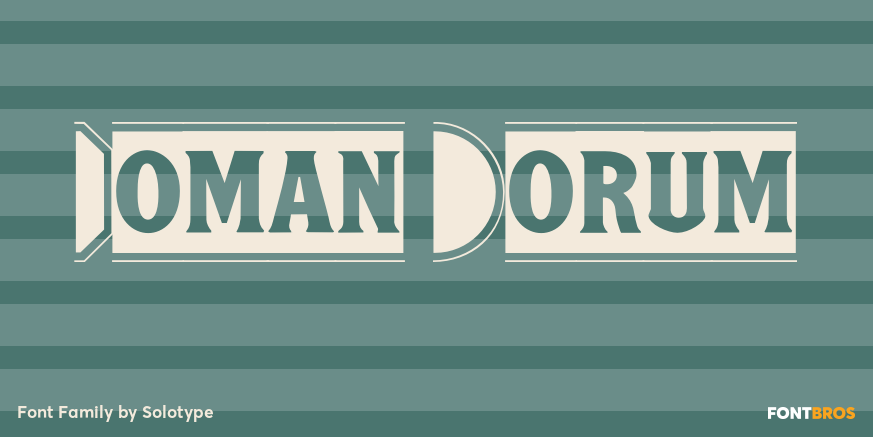
HomeFont BrosSpecial EffectRoman Forum Special Effect Roman Forum FacebookXPinterestWhatsApp 1 of 1 About Roman Forum A special effects font that forms headlines reversed on a background. Many different endpieces are furnished.  DOWNLOAD ON FONT BROSThis font is sold and delivered by Font Bros. Font Canyon may earn a commission if you buy through this link. People also explored Dolvphy Font Snappy Vallocka Mochi Font Pro Sotan Font Fazerdaze Font Leftover Crayon Hisstories Font Mountains Font 305 0 TagsRoman Forum Font Previous articleEmblem ChiefNext articleArpona Sans LEAVE A REPLY Cancel reply Comment: Please enter your comment! Name:* Please enter your name here Email:* You have entered an incorrect email address! Please enter your email address here Website: Save my name, email, and website in this browser for the next time I comment. Personal Use Free Mail Ray Stuff Personal Use Free Read more about this font BD Spinner Personal Use Free Read more about this font 1313 Mockingbird Lane Personal Use Free Read more about this font Kaysan Personal Use Free Read more about this font BLOG Free vs Paid Fonts: Why Investing in Premium Fonts Is Worth It Free vs Paid Fonts: Why Premium Fonts Are Worth It in 2025 The debate of free vs paid fonts continues in the design world. While... Top 10 Handwritten Fonts That Elevate Your Designs Fonts That Capture the Spirit of New York City How to Install and Use Fonts on Windows, macOS, and Web Projects